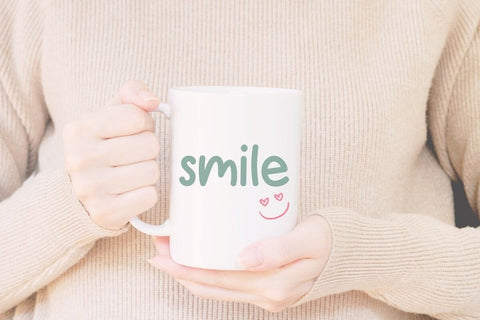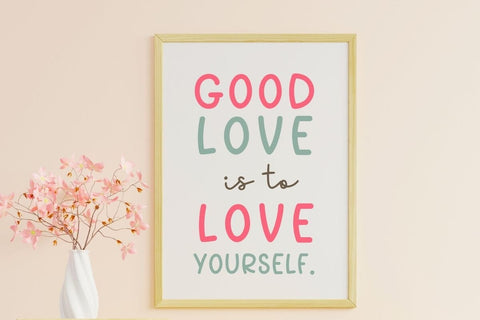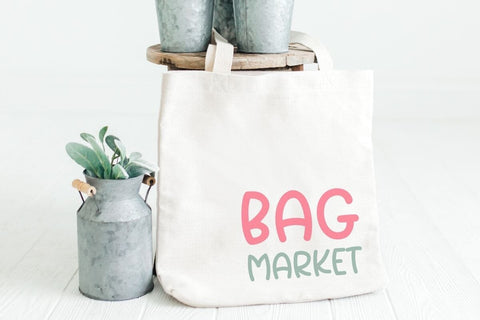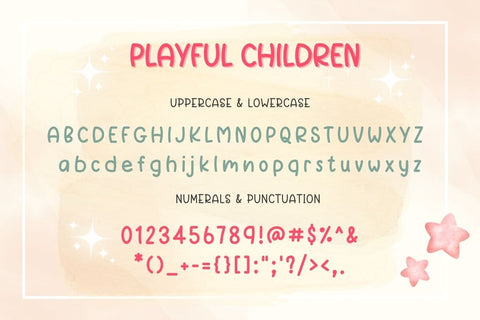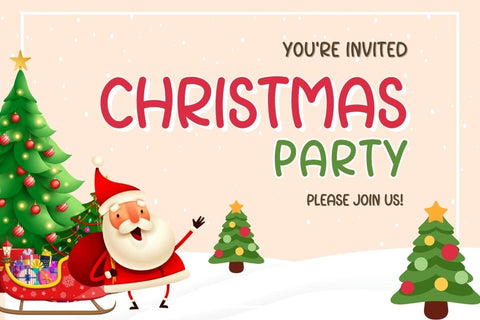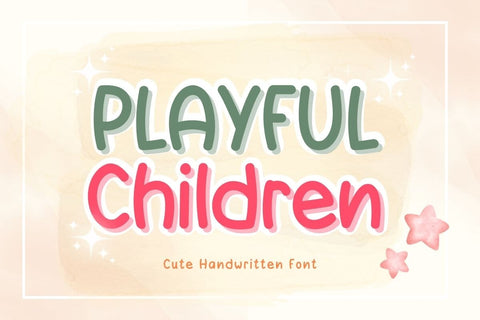
Playful Children - Handwriting Font
Welcome to the enchanting world of Playful Children, a delightful handwritten font that brings a touch of whimsy to your projects! With its charming and quirky style, this font is perfect for adding a playful twist to your designs. Whether crafting invitations, designing greeting cards, or creating eye-catching posters, Playful Children will infuse your work with joy and creativity.